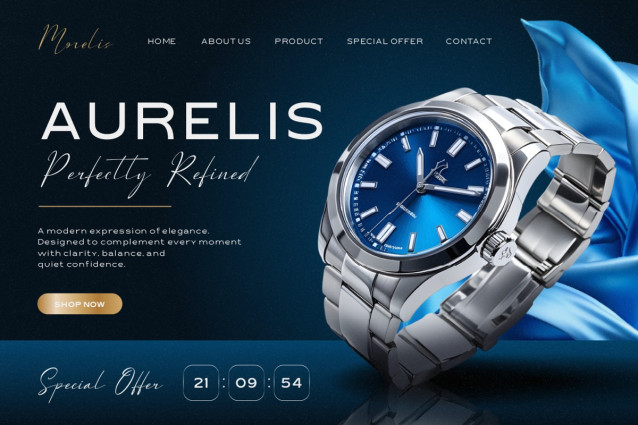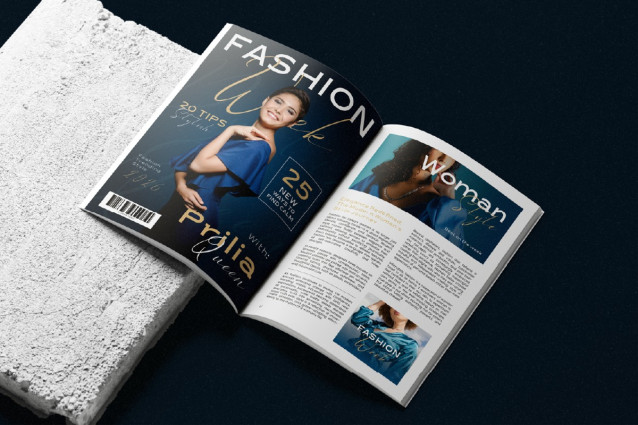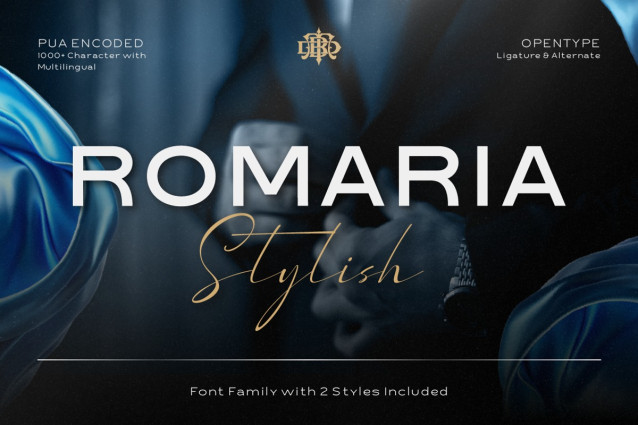
Romaria Stylish Font
Romaria Stylish Font is a modern elegant typeface designed to express timeless sophistication with a clean, contemporary touch. Crafted for designers who love clarity, balance, and refined aesthetics, Romaria brings a quiet confidence to every design. This font family comes with two styles, a sleek sans serif and a graceful script, allowing you to create beautiful contrast in a single layout. Perfectly paired, they work harmoniously for luxury branding, editorial design, fashion projects, and premium product presentations. Whether you’re designing a watch brand, perfume label, magazine layout, wedding stationery, or modern lifestyle branding, Romaria Stylish delivers a polished and timeless look with effortless elegance.